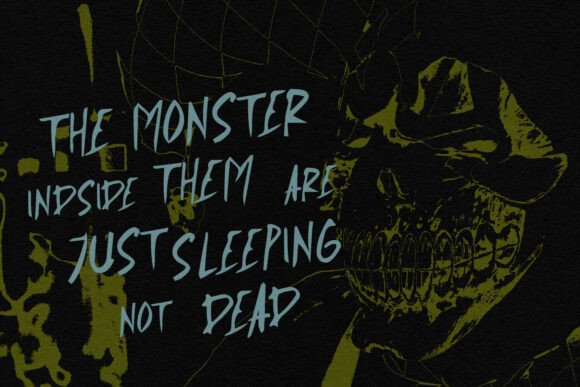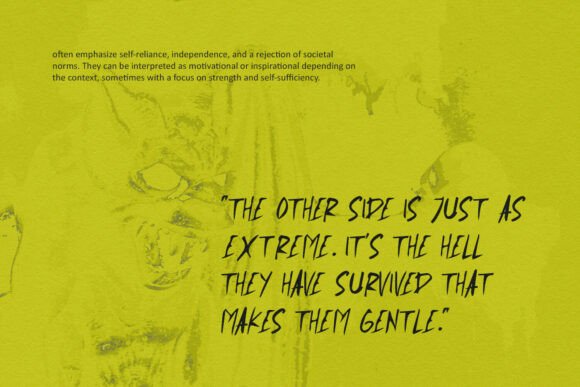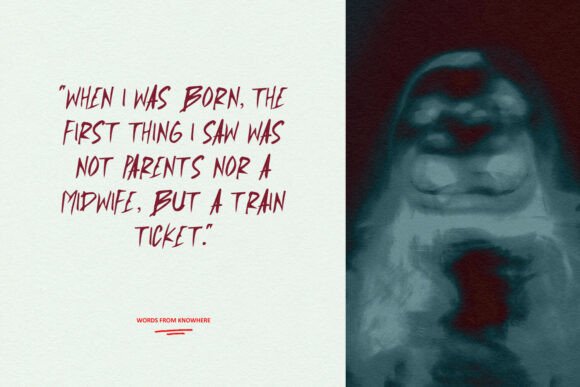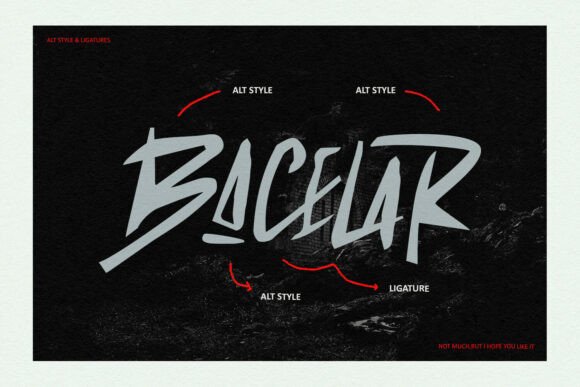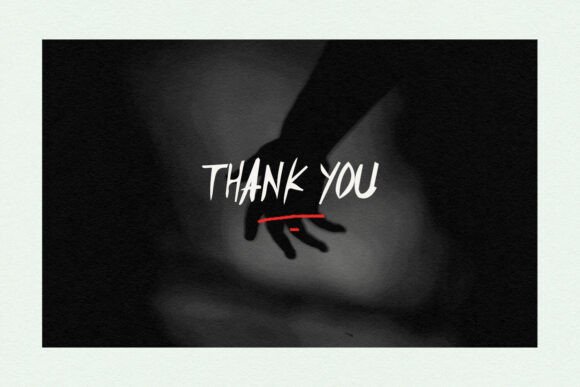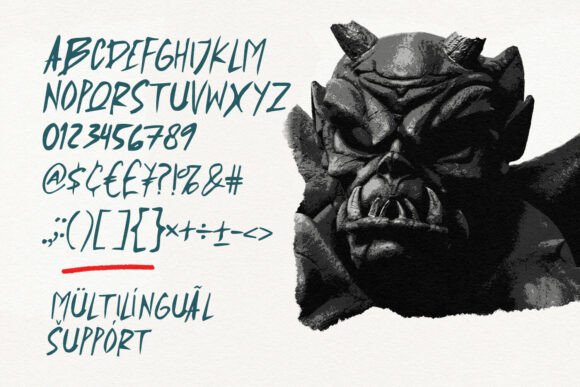
Introduction to Bacelar Font
You’re in the zone, working on your latest creative project, and the perfect font is the missing piece that’s holding everything together. You browse through your design resources, searching for that one font that exudes raw energy and attitude. Suddenly, your eyes land on Bacelar Font – a bold, rebellious handmade brush font that screams to be noticed.
With its jagged strokes, aggressive angles, and a raw street-art aesthetic, Bacelar Font is the ultimate design resource for anyone looking to add a powerful punch of attitude to their work. Whether you’re designing a music cover, poster, or apparel, this font is sure to command attention and leave a lasting impression.
Key Features of Bacelar Font
- Unique characteristics: elegant and modern design, perfect for branding, typography, and creative projects.
Honest Review: Bacelar Font
I recently came across the Bacelar Font and was excited to dive in and see what it had to offer. As a designer, I’m always on the lookout for high-quality design resources that can elevate my creative projects. The Bacelar Font is a free download, which immediately caught my attention.
What works well with the Bacelar Font is its versatility. It’s perfect for a wide range of creative projects, from digital design to print materials. The font is also available with a transparent background, making it easy to integrate into any design.
- ✨ High-quality design with a unique, modern feel
- ✨ Versatile font suitable for digital and print projects
- ✨ Free download, making it an excellent design resource for beginners
- ✨ Available with a transparent background for easy integration
While the Bacelar Font is a great addition to any designer’s toolkit, there are a few limitations to consider. The font selection is relatively limited, and there are no bold or italic options available.
- ⚠️ Limited font selection
- ⚠️ No bold or italic options available
Overall, I’m impressed with the Bacelar Font and would recommend it to designers looking for a high-quality, free design resource. While it may have some limitations, it’s a great starting point for any creative project.
Bacelar Font is commonly used in various creative projects, including logos, business cards, and brochures. It’s also a great choice for designers who want to create high-quality designs with a transparent background.